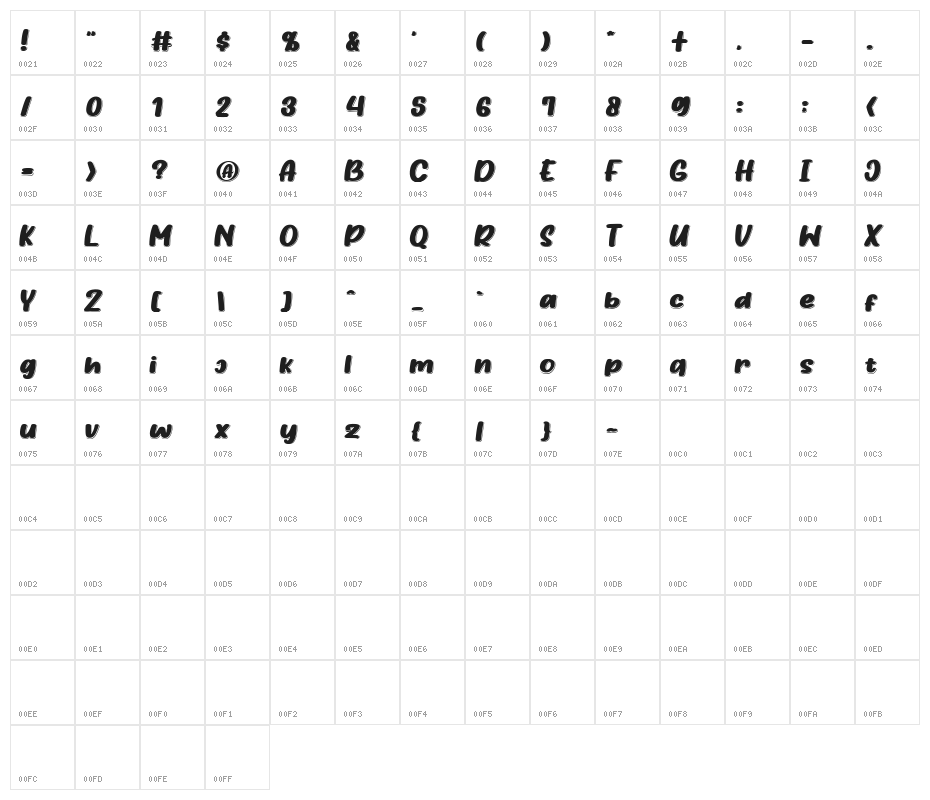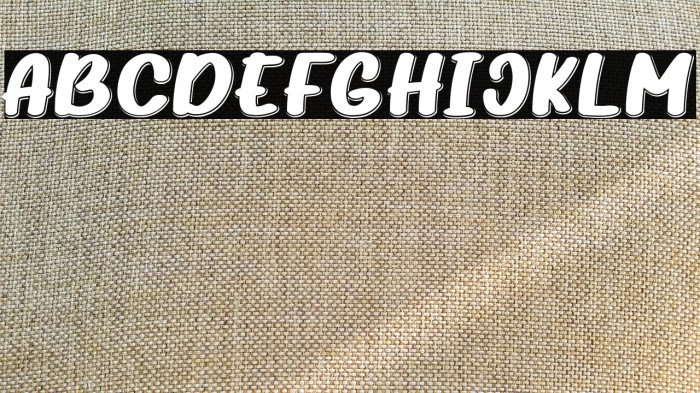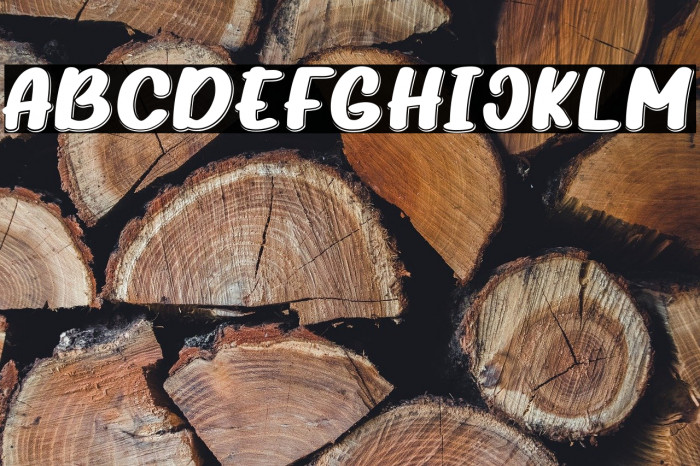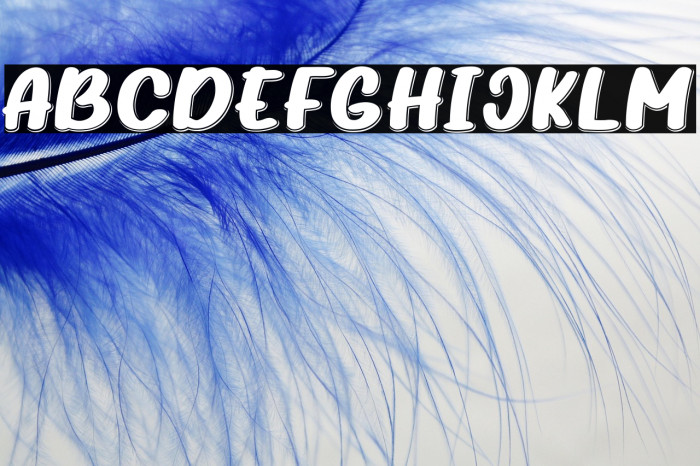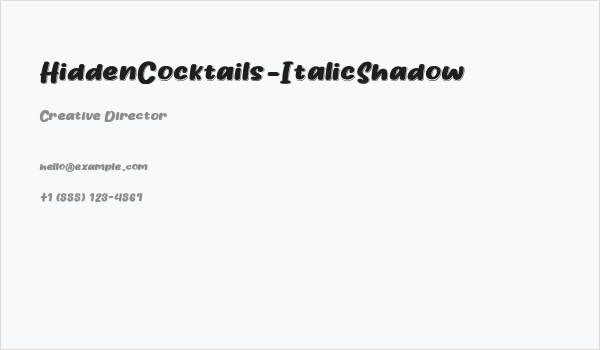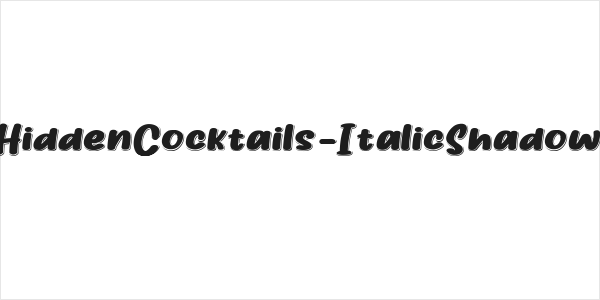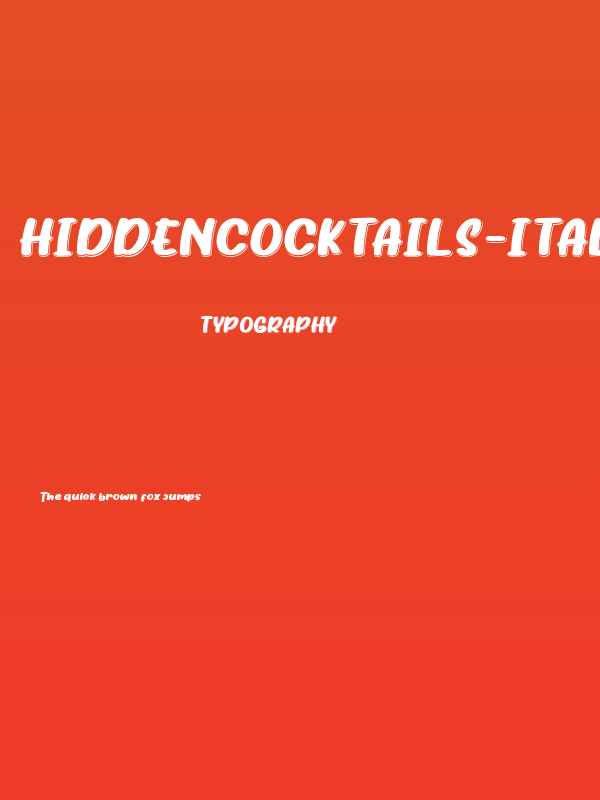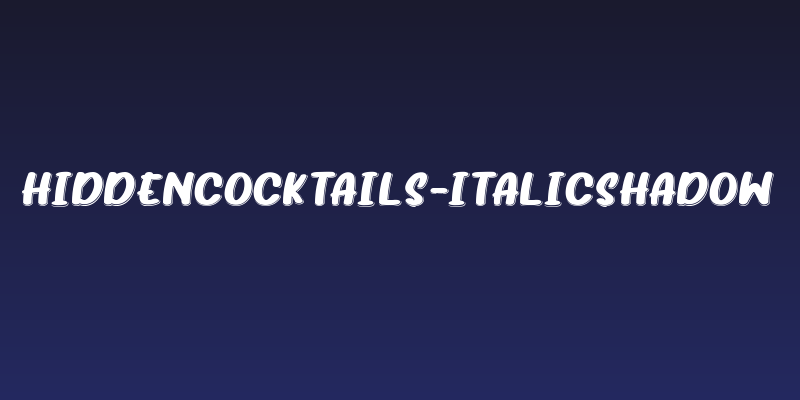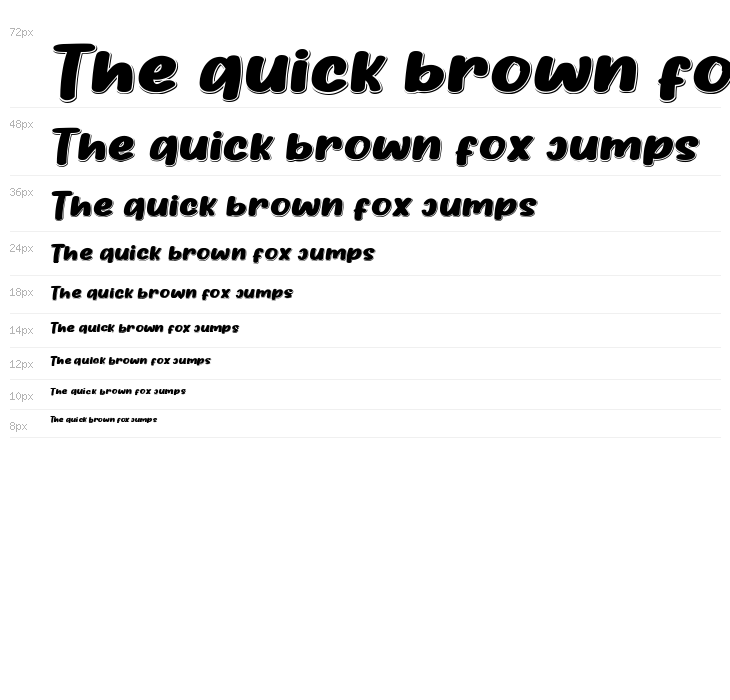
HiddenCocktails-ItalicShadow Font
HiddenCocktails-ItalicShadow Description
This font features a bold, playful style with a distinct shadow effect that adds depth and dimension to each character. The letters are rounded and slightly italicized, giving them a dynamic and energetic appearance. The uppercase and lowercase letters maintain a consistent style, with smooth curves and a strong presence. The numerals are equally bold and follow the same design principles, ensuring readability and visual impact. Special characters are included, each designed to complement the overall aesthetic. This font is ideal for projects that require a fun and eye-catching look.
| Overall Style | Playful, Modern |
| Proposed Projects | Ideal for posters, logos, children's books, and playful branding materials. |